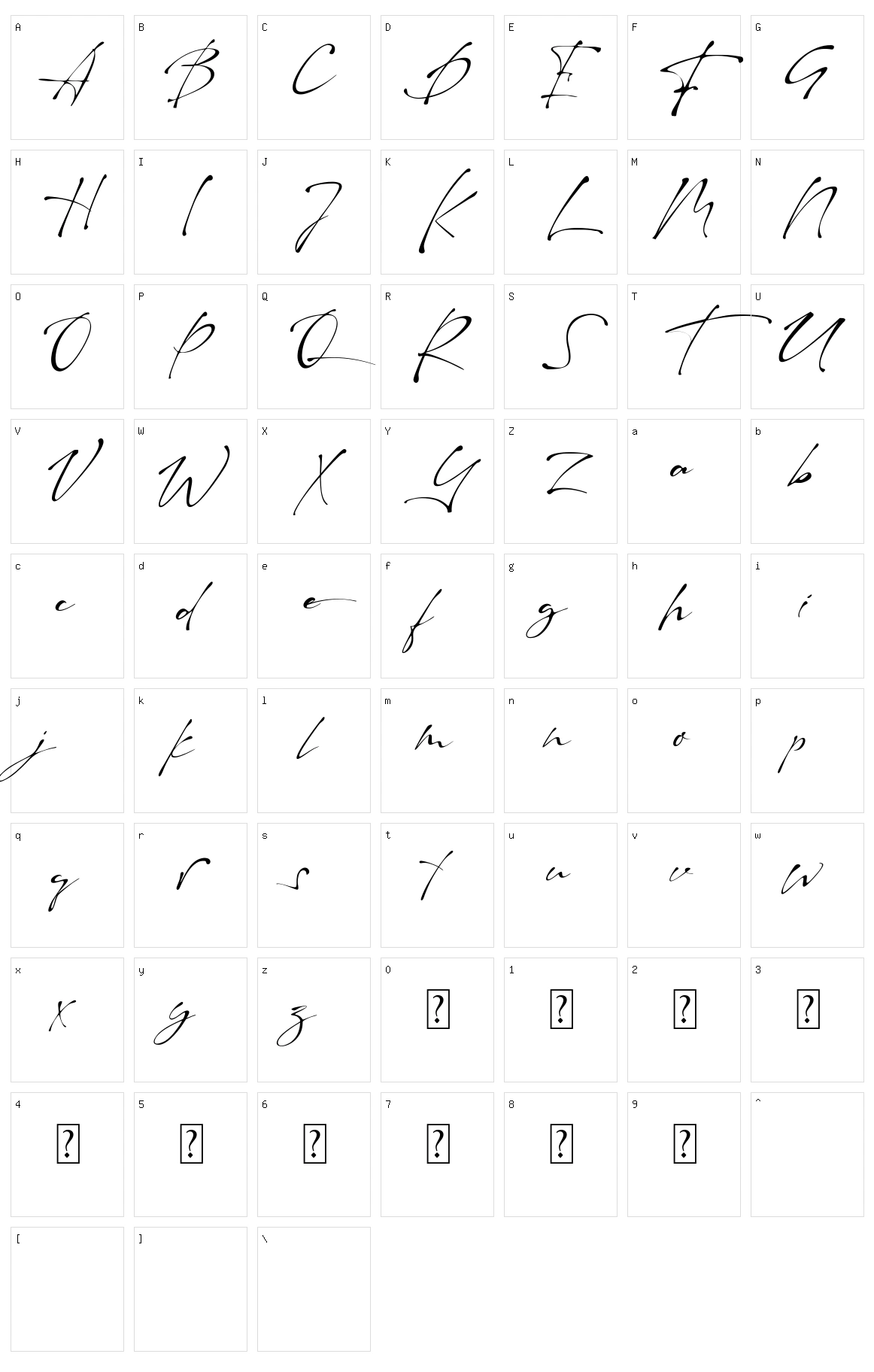
The free font Raullina Aguste is carefully designed by Typeline Studio, showcasing a thoughtful balance of creativity and usability and falls under the Script font style. When you download the ZIP file, it contains only 15.33 KB of font files, making it lightweight and quick to download. Please review the license details below to understand permitted usage and distribution rights. If license information is not available, we recommend using this font for personal projects only or contacting the author directly for commercial usage permissions.